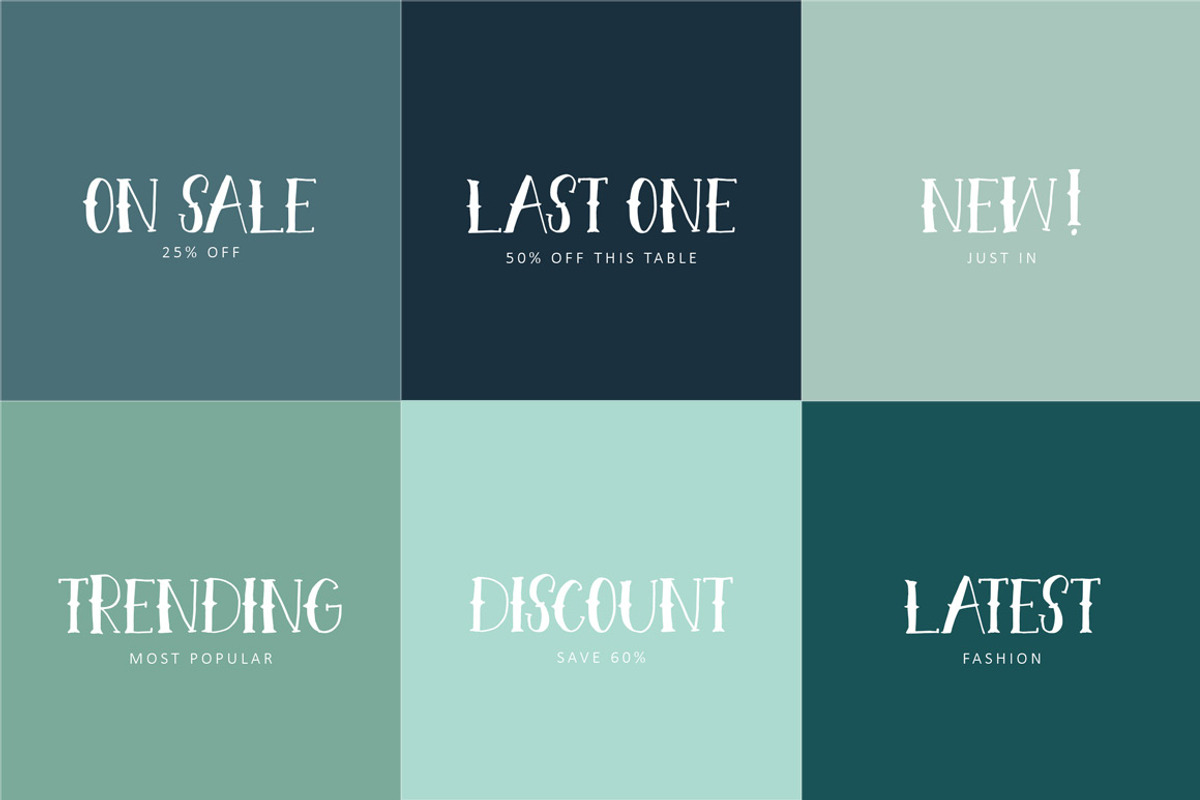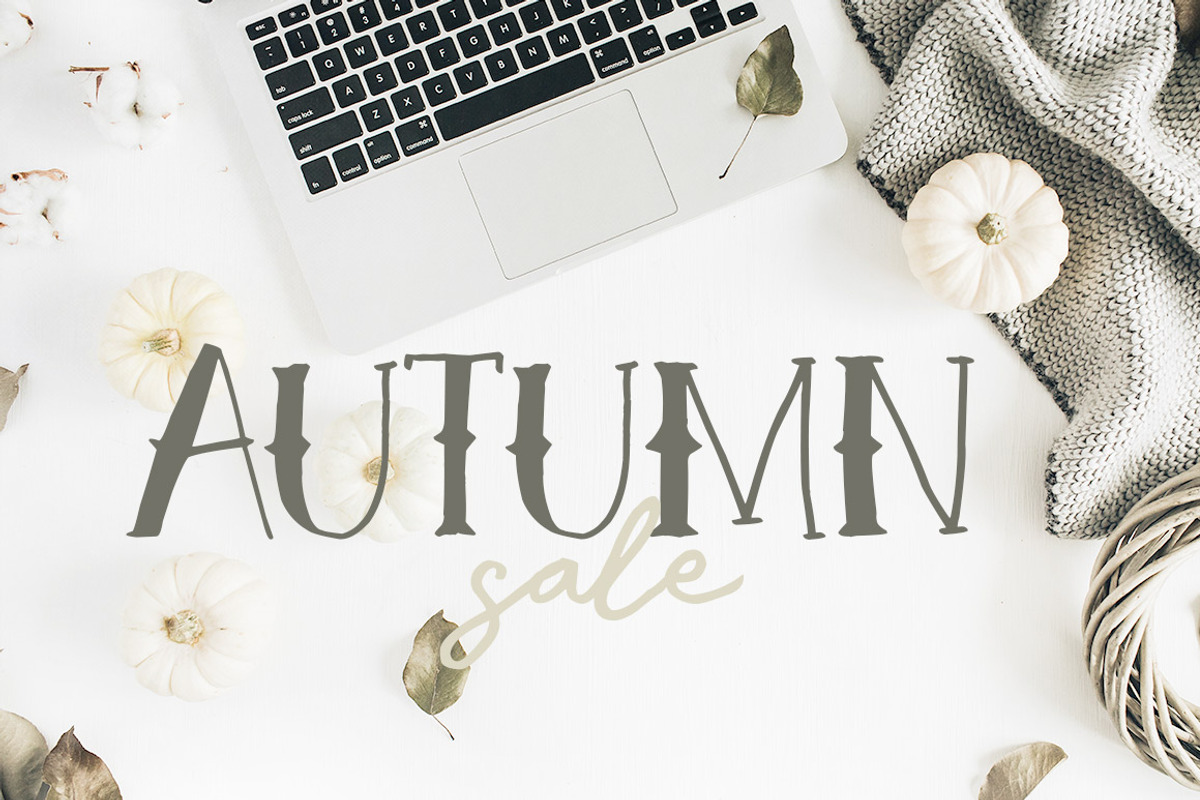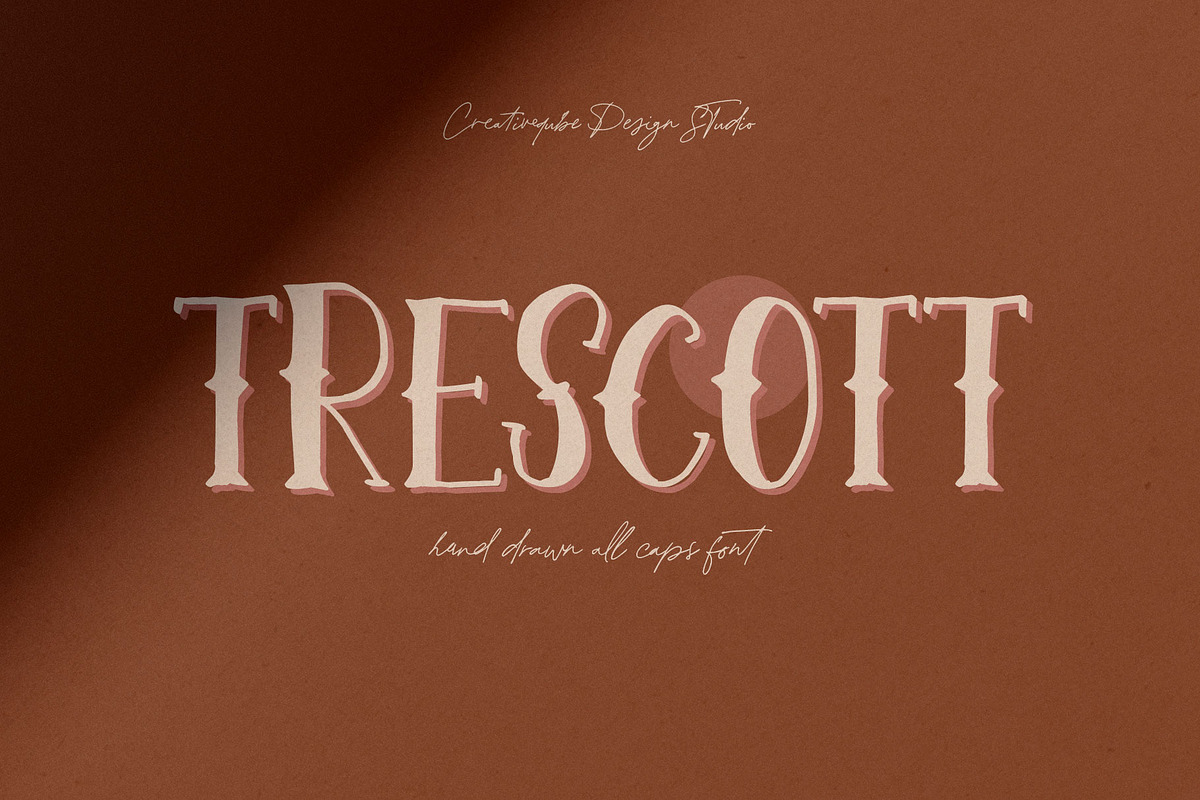
Trescott Font
Introducing Trescott display font.
This is a hand drawn all caps display font, filled with fun imperfections to add charm to your work.
Why Trescott Font is worth a look
Trescott Font by Creativeqube Design fits naturally into Branding, posters, packaging, typography.